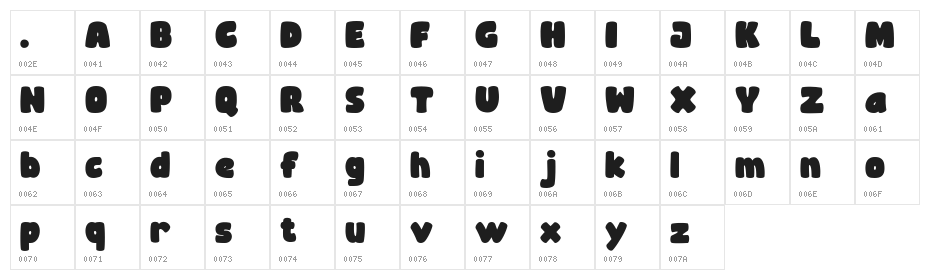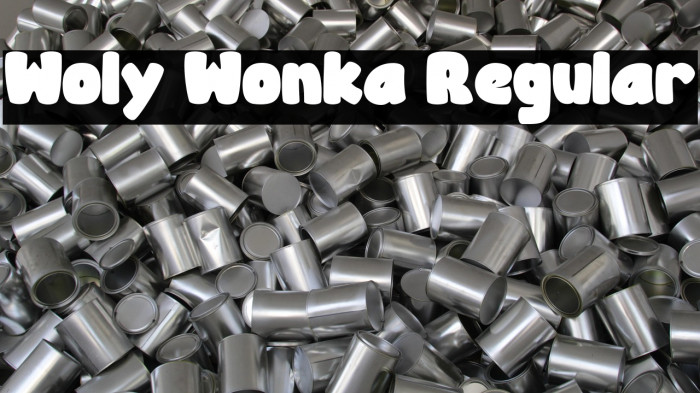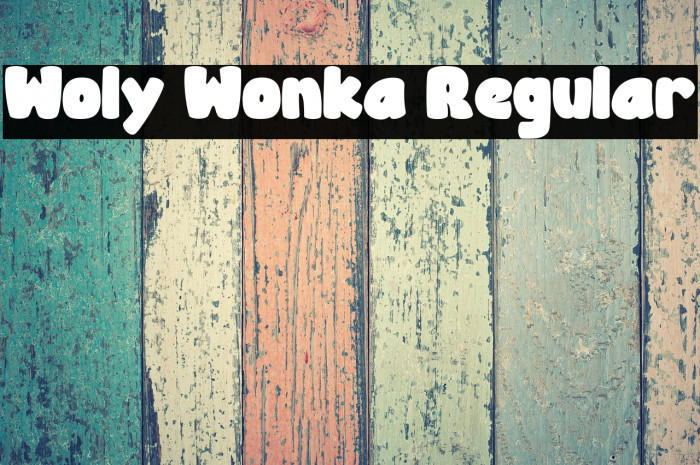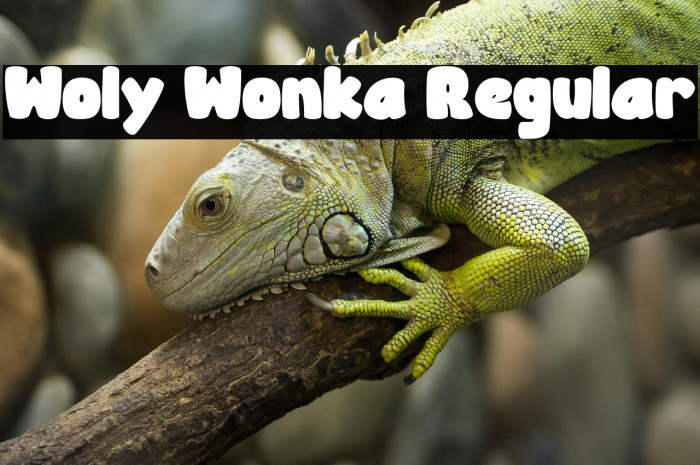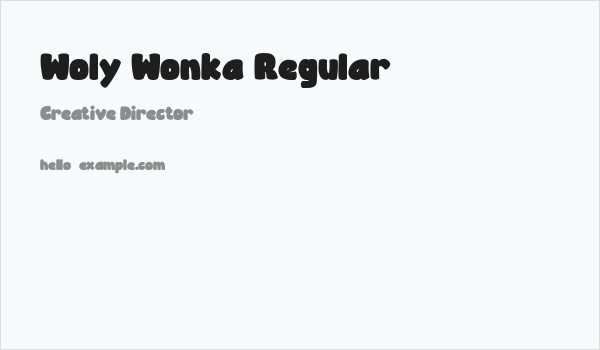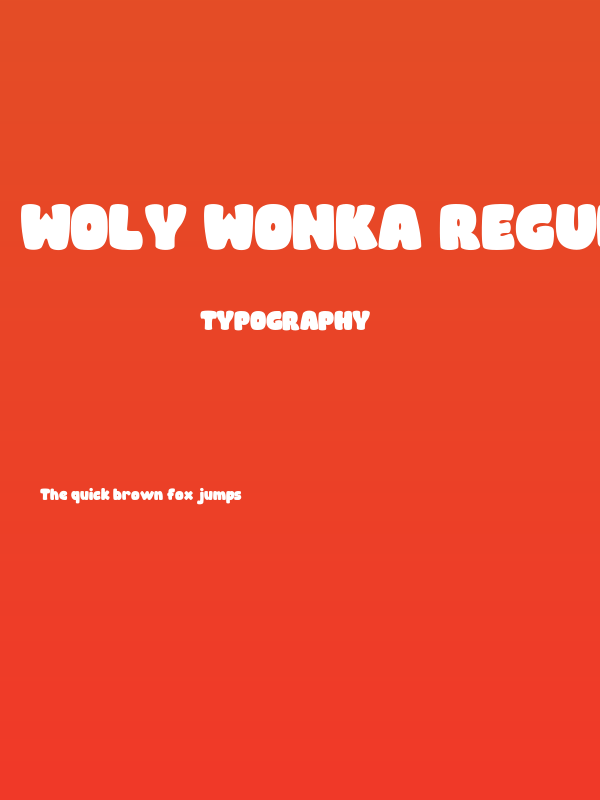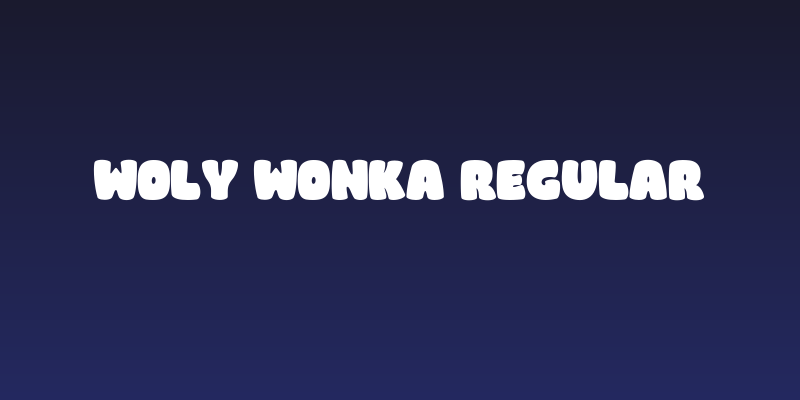
Woly Wonka Regular Font
Woly Wonka Regular Description
This font features a playful and bold design with rounded, bubbly characters that convey a sense of fun and whimsy. The letters are uniformly thick, with a consistent stroke weight that gives them a solid and substantial appearance. The rounded edges and lack of sharp angles contribute to a friendly and approachable aesthetic. This style is reminiscent of retro or cartoonish themes, making it ideal for projects that require a lighthearted and informal touch. The font maintains a consistent baseline and x-height, ensuring readability while adding a unique flair to any text.
| Overall Style | Playful, Retro |
| Proposed Projects | Perfect for children's books, playful branding, party invitations, and cartoon-themed projects. |